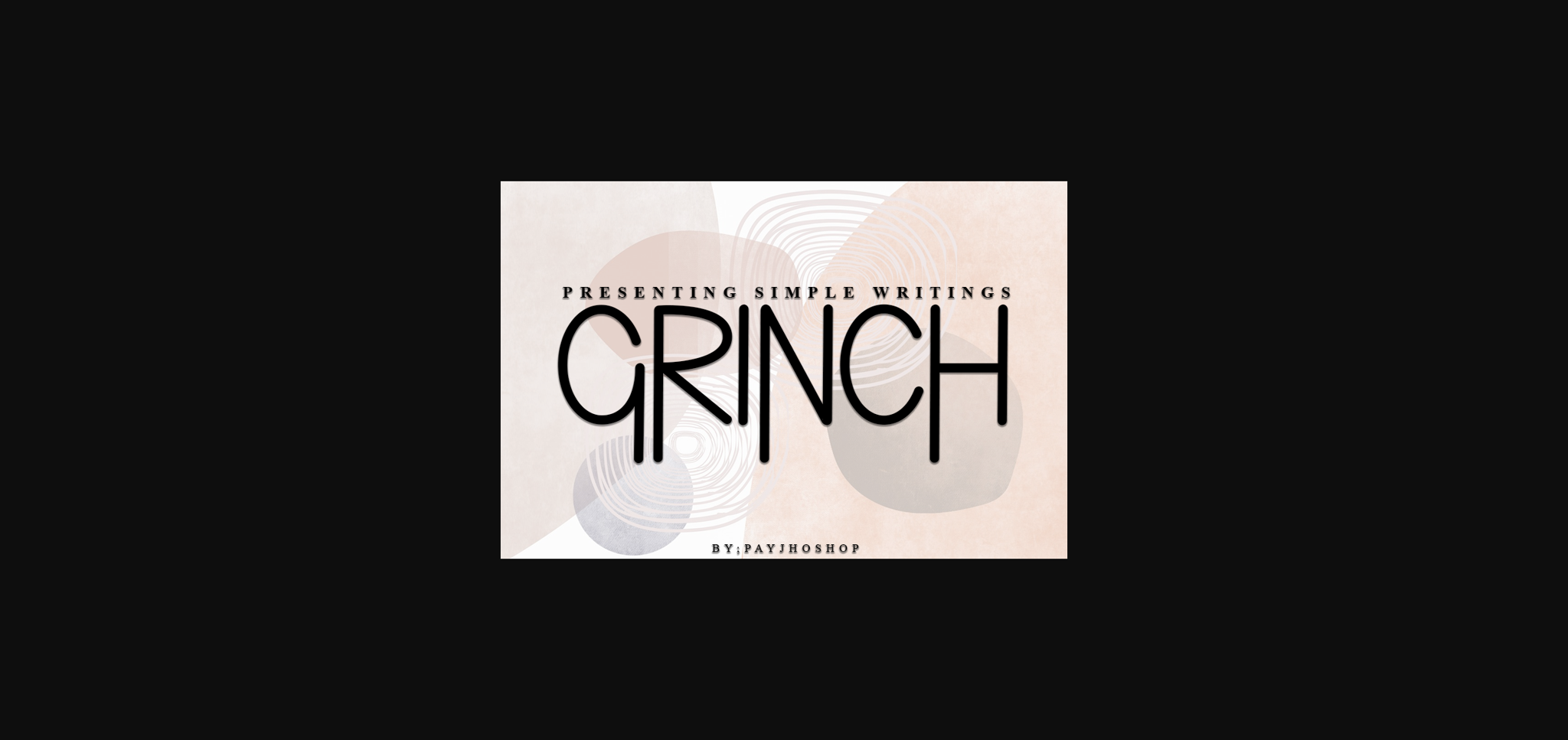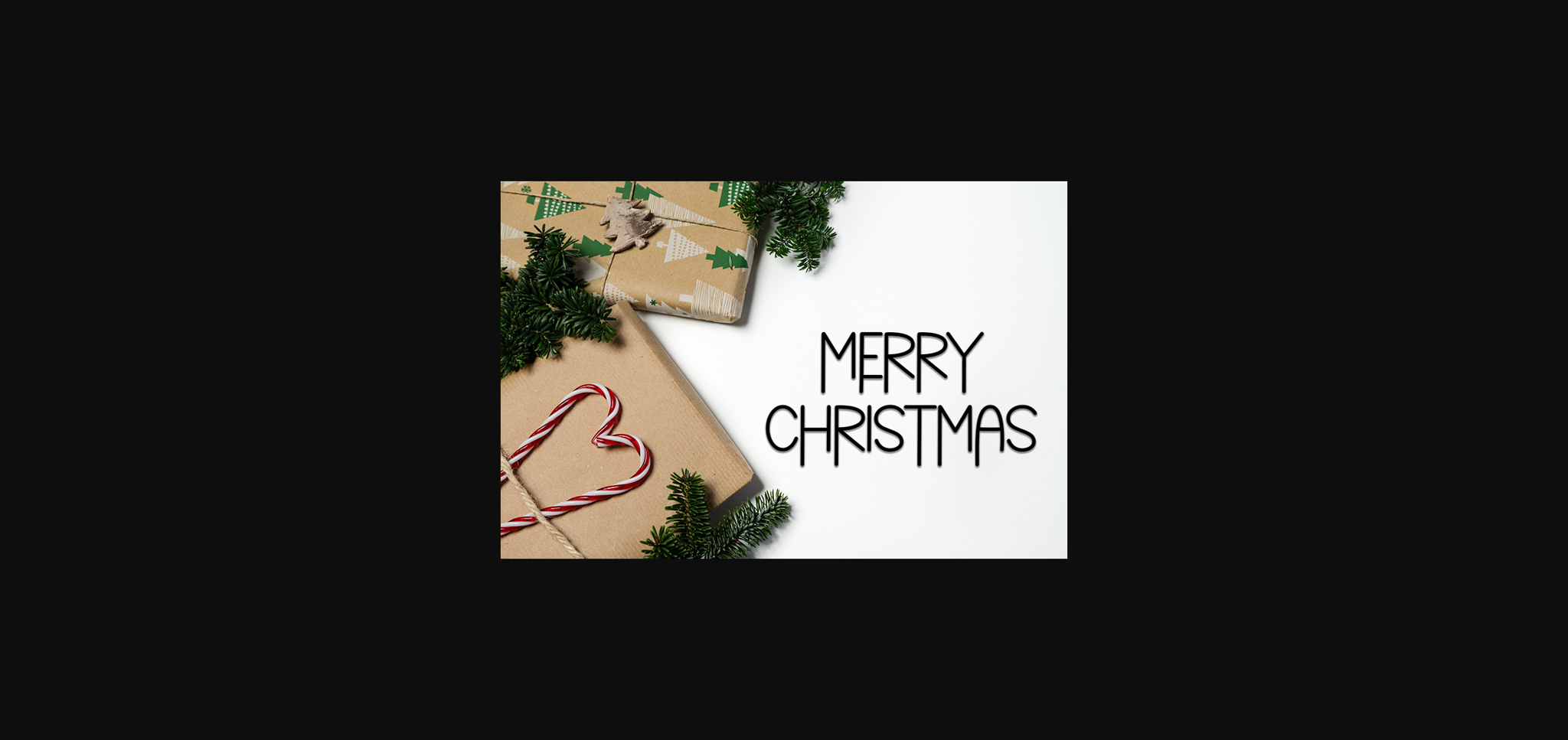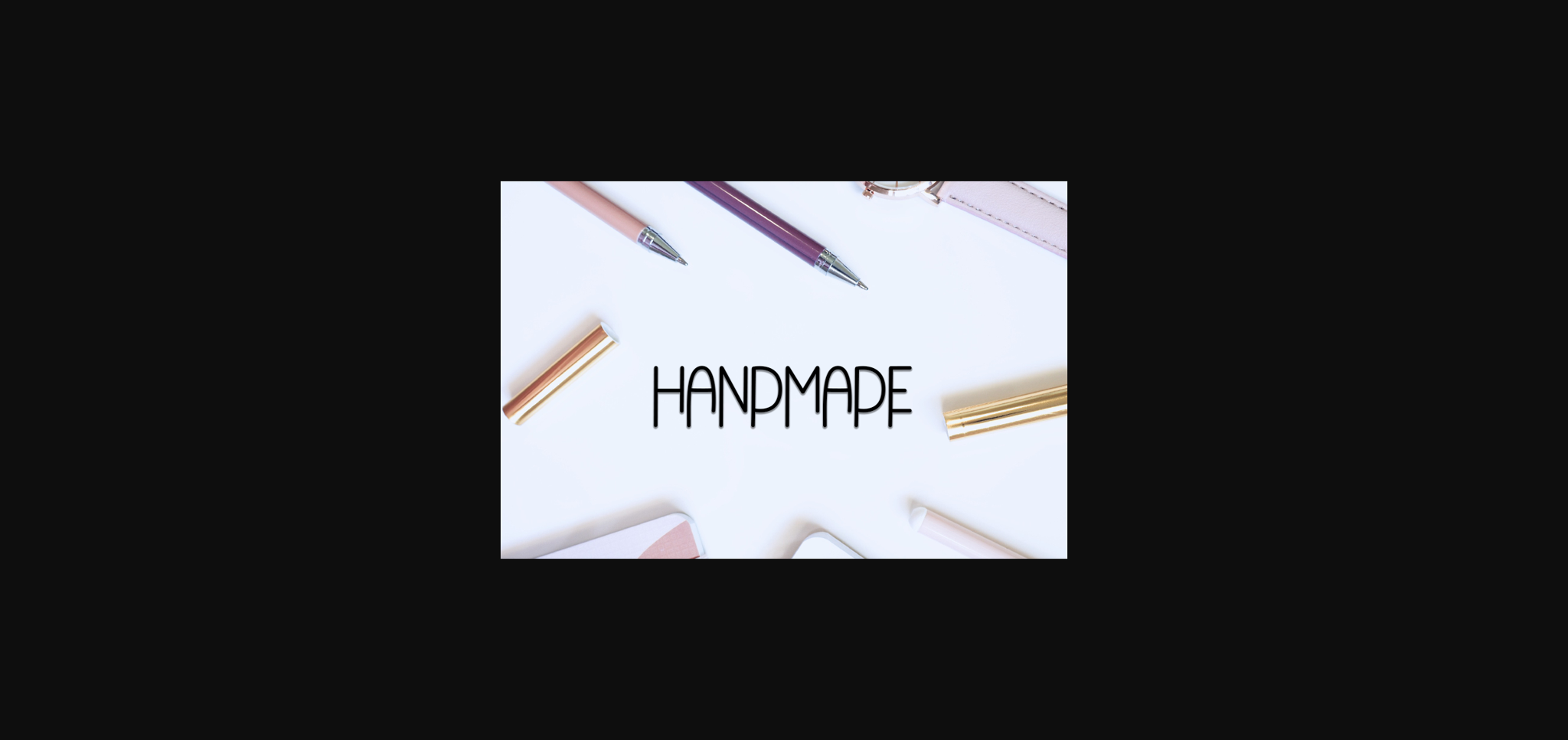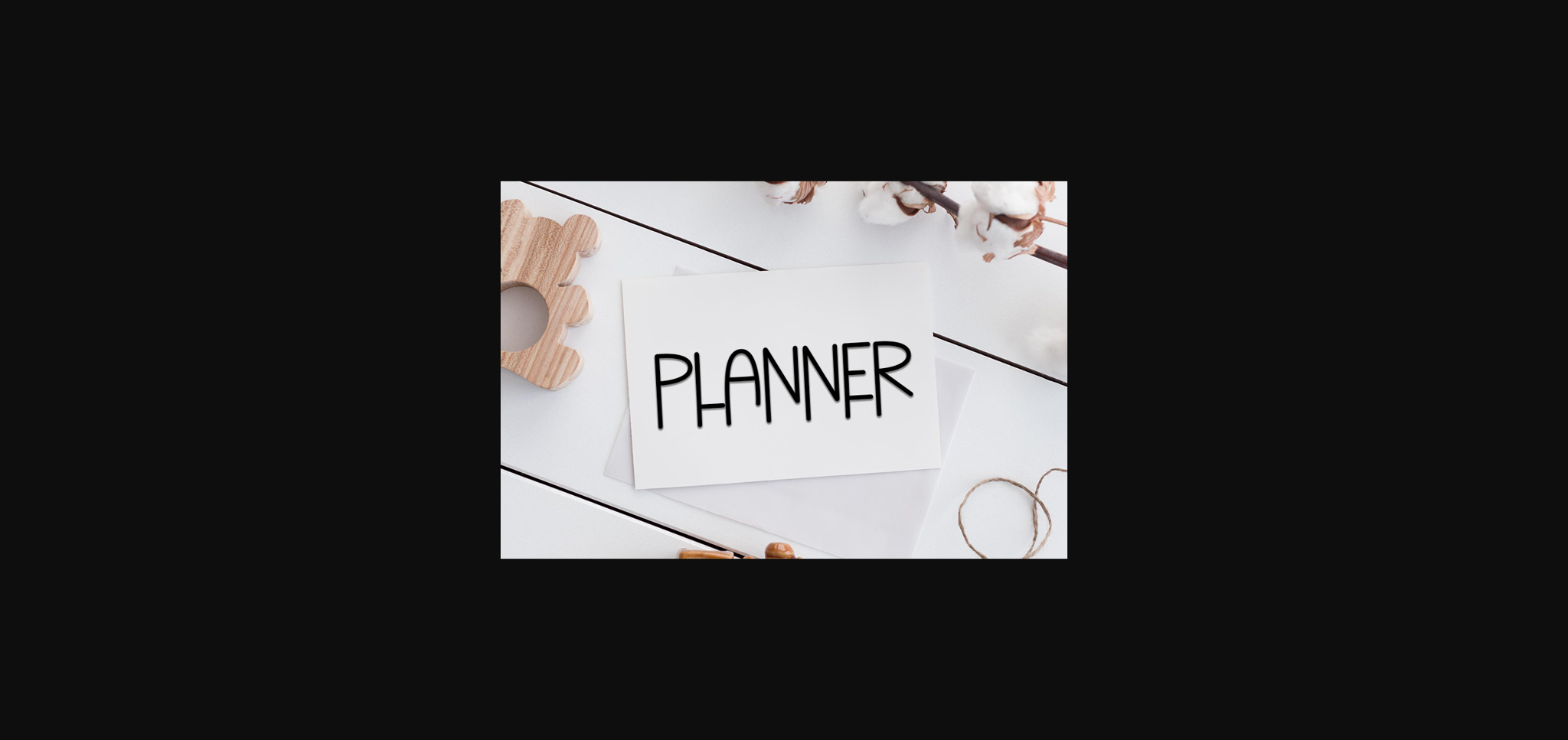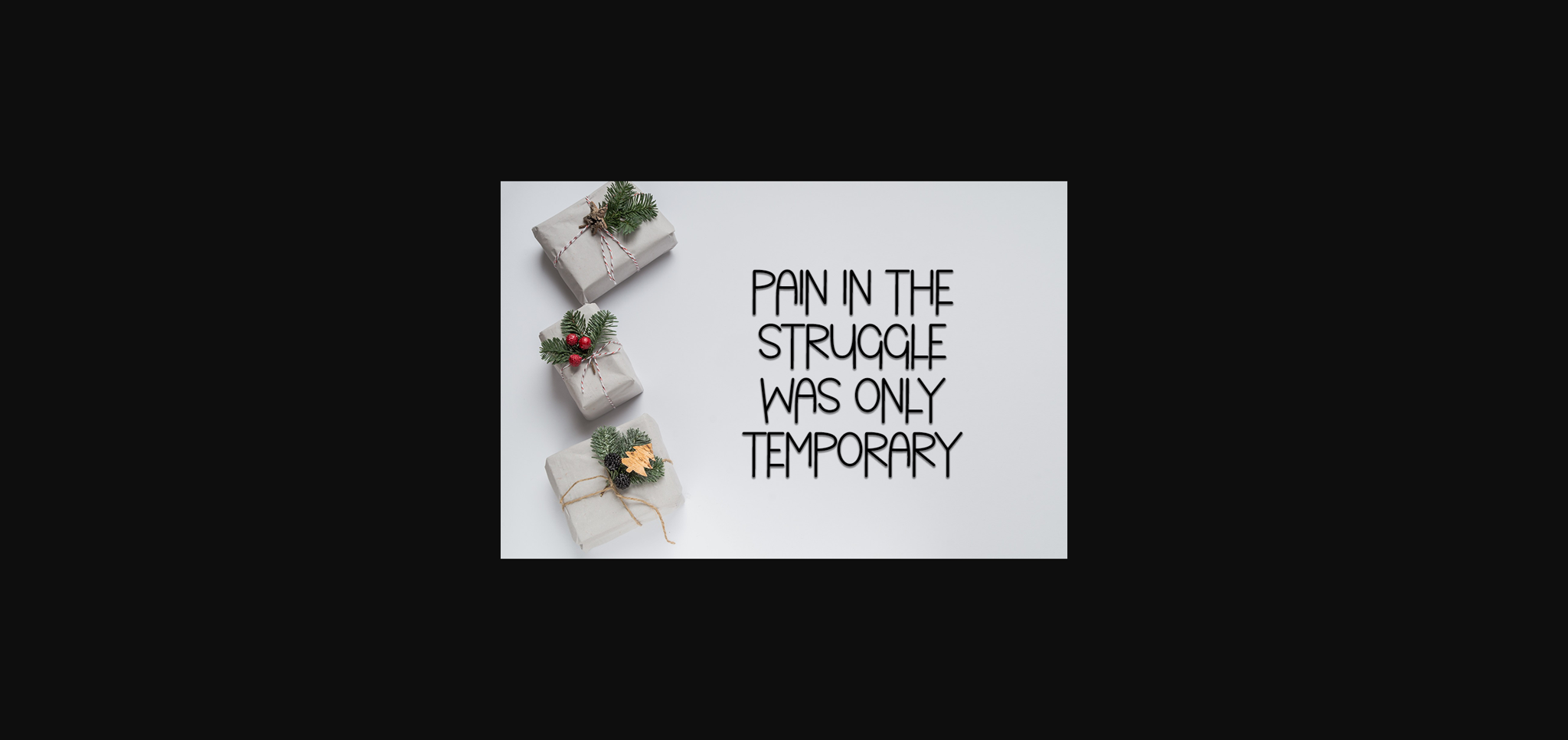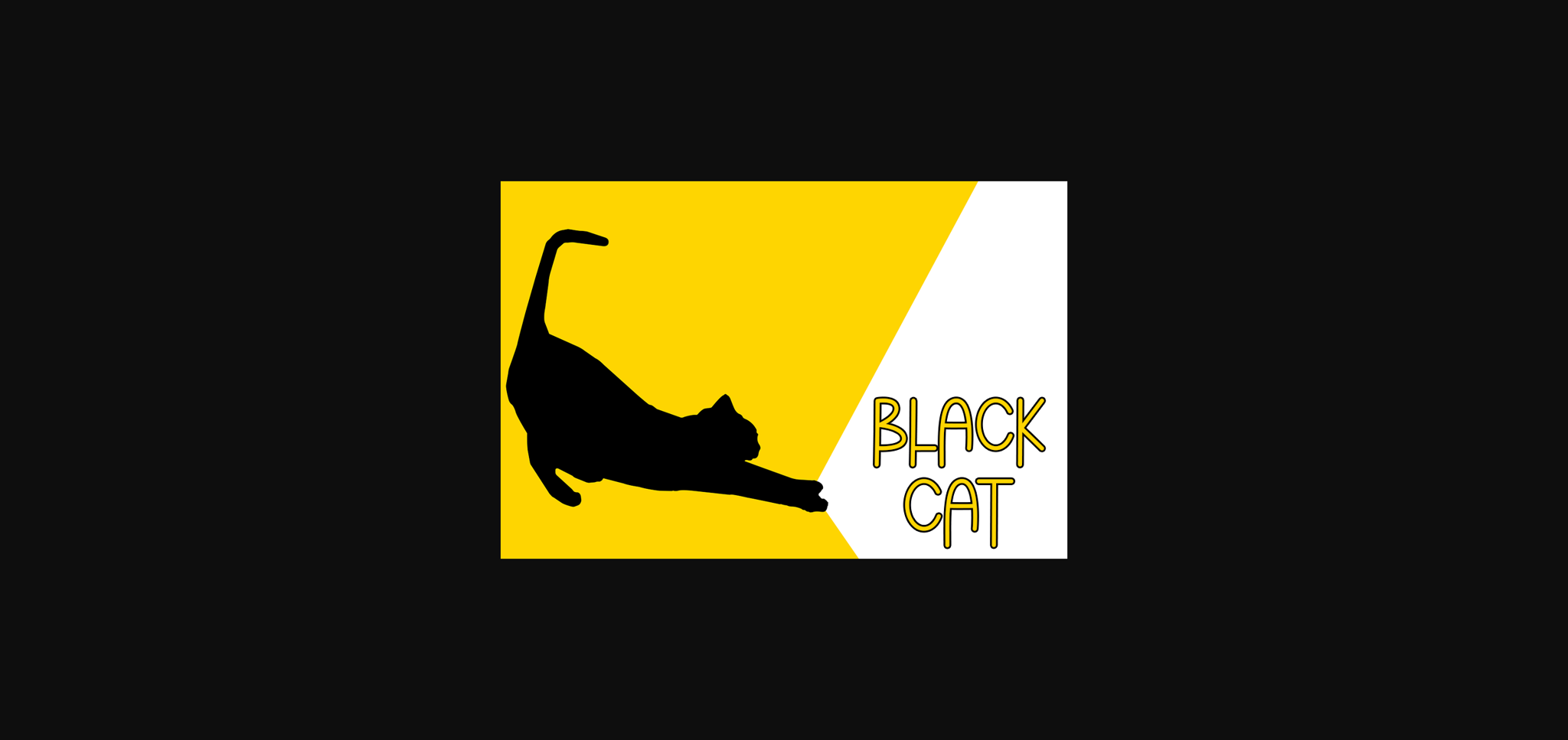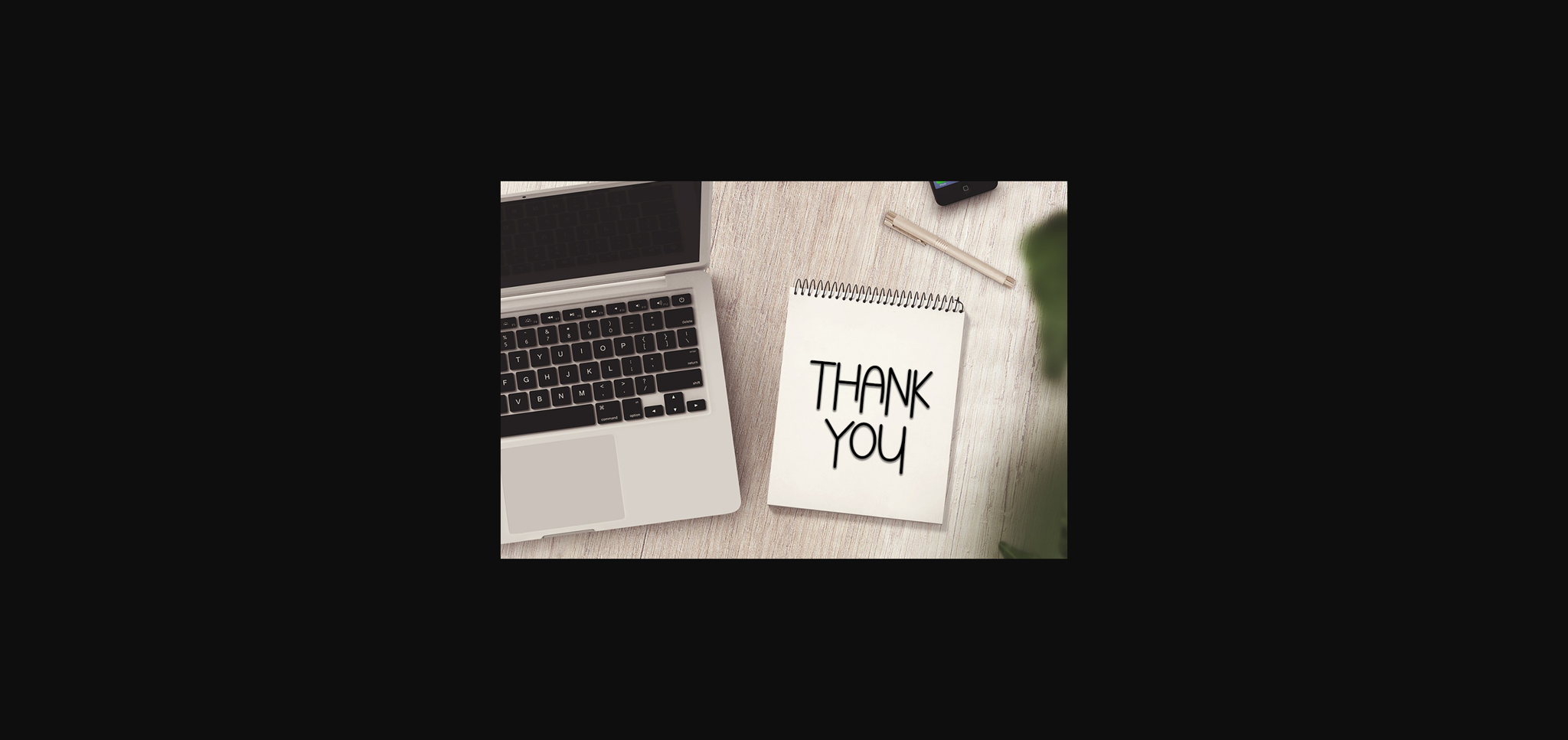
Grinch Font
About Grinch Font
Grinch is a cool and modern sans serif font. Whether you’re using it for crafts, digital design, presentations, or making greeting cards, this font has the potential to become your favorite go-to font, no matter the occasion.